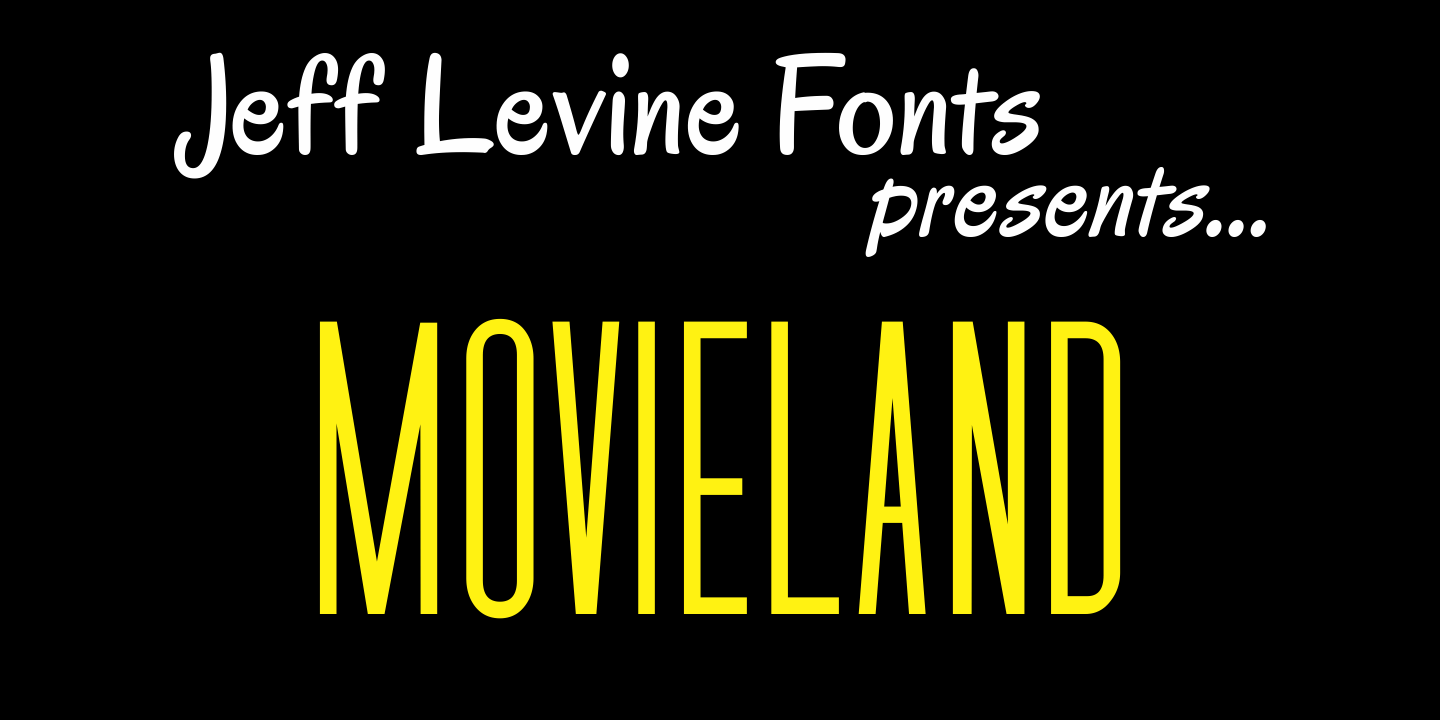
Movieland
Movieland JNL is a re-working of Jeff Levine's Art Deco-styled Wingate JNL, with more traditional letter shapes; making it perfect for creating (or recreating) the compact look of movie poster production credits.